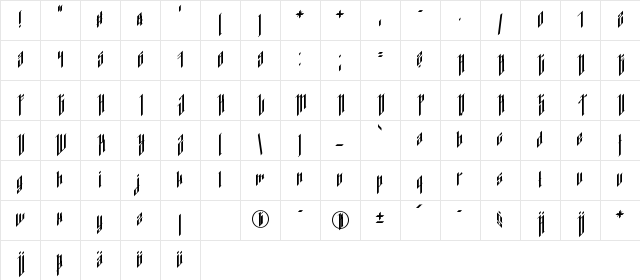
Dancing_DL1.0 Regular
Designer: Dekor Labor
Complete Dancing_DL1.0 Regular glyph index. Displaying only characters natively supported by Dancing_DL1.0 Regular font.
Design Context for Dancing_DL1.0
Dancing_DL1.0 is a composed and adaptable typeface that performs quietly and consistently across a wide range of design contexts.